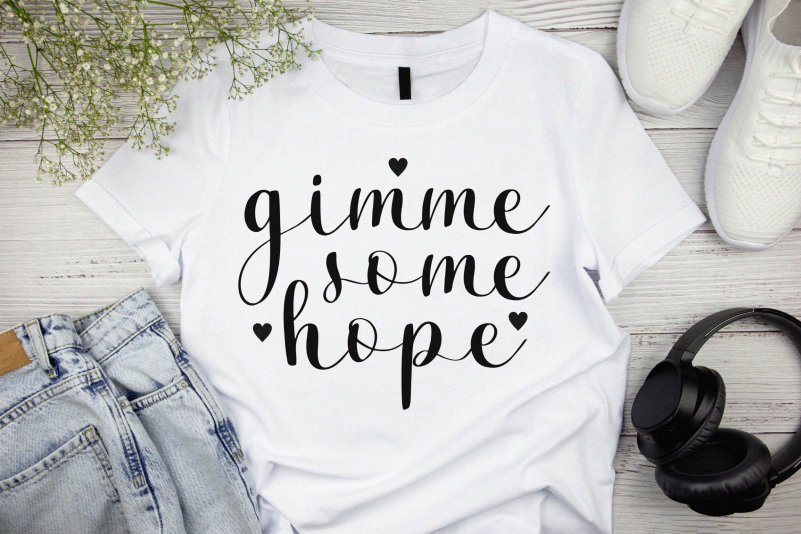
Magica Font
Magica Font is perfect for product packaging, branding project, megazine, social media, wedding, or just used to express words above the background.